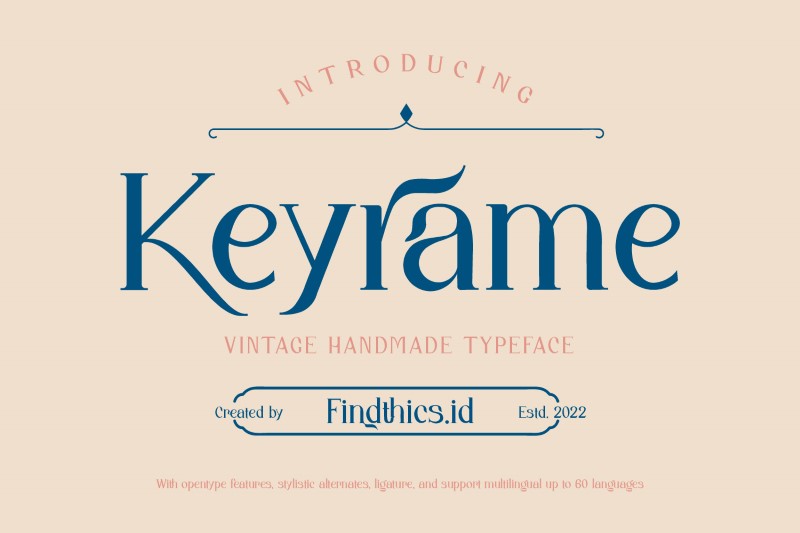
Keyrame Font
Designed by Findthics.id
About Keyrame
Introducing Keyrame Font.
Keyrame is a vintage serif font. Create from our talented font designer. The design of typeface will make your design more beautiful and inspiring. This font will suitable for any project, like branding, print template, logo and etc.